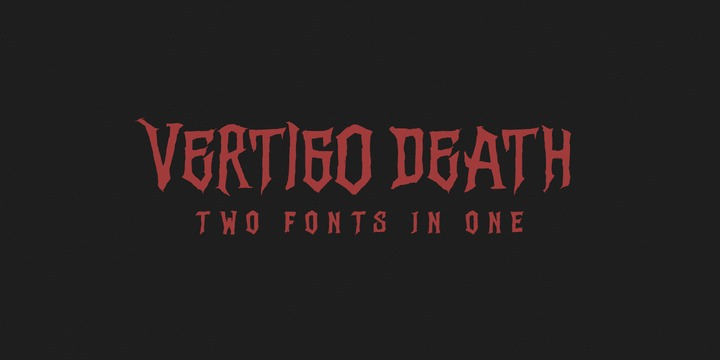
Vertigo Death Font
Vertigo Death Font is perfect for horror movie titles, dark metal band logos, gothic thriller book covers, haunted attraction signage, apocalyptic game graphics, dark fantasy materials, mysterious thriller posters, gothic art exhibitions, dramatic horror productions, and intense atmospheric branding.
Vertigo Death Font is exciting because it masterfully captures the disorienting intensity and dark psychological depth that defines the most compelling horror and thriller aesthetics, creating a typeface that embodies psychological tension, dramatic suspense, and the vertigo-inducing power of confronting mortality. This font brings dark sophistication and psychological intensity to any project, making it ideal for entertainment brands that want to convey psychological depth, dramatic tension, and the compelling allure of confronting life's darker mysteries. Its intense character and psychological appeal create an atmosphere of dramatic suspense that resonates with audiences seeking intense emotional experiences.
Vertigo Death Font family includes regular, bold, distressed, and heavily manipulated variations, plus dark symbols, psychological ornaments, and intense decorative elements, providing designers with comprehensive tools for creating psychologically intense typography and dramatically dark brand experiences.
This haunting psychological typeface combines dark aesthetic principles with contemporary functionality, making Vertigo Death Font Free Download an outstanding choice for projects exploring psychological themes and dramatic intensity. The font's intensely crafted letterforms feature disorienting proportions and psychologically inspired styling that reflect the complex emotions and dramatic tension associated with mortality themes and psychological exploration.
Whether you're designing horror entertainment branding, psychological thriller materials, or dark artistic communications, Vertigo Death Font delivers unmatched psychological authenticity and dark appeal. The font excels in both large-scale atmospheric applications and detailed psychological designs where dramatic intensity and dark themes create compelling emotional experiences.
Entertainment professionals choose Vertigo Death Font for its ability to instantly communicate psychological intensity and dramatic depth while creating emotional connections with audiences seeking intense psychological experiences and dark entertainment. The font's intense character makes it particularly effective for horror productions, psychological thrillers, and dark entertainment venues.
Each character reflects the disorienting nature of psychological tension, featuring intense construction and dramatic proportions that create typography as compelling and memorable as psychological thrillers, intense horror experiences, and the complex emotions surrounding mortality.